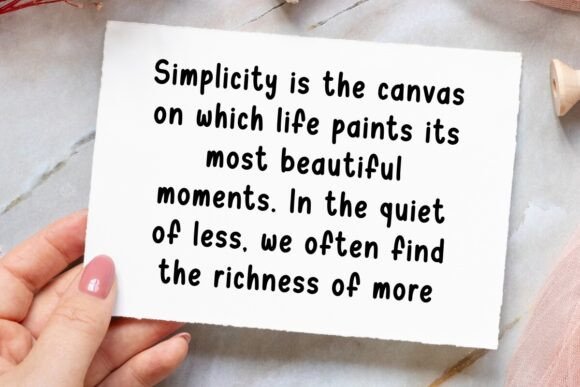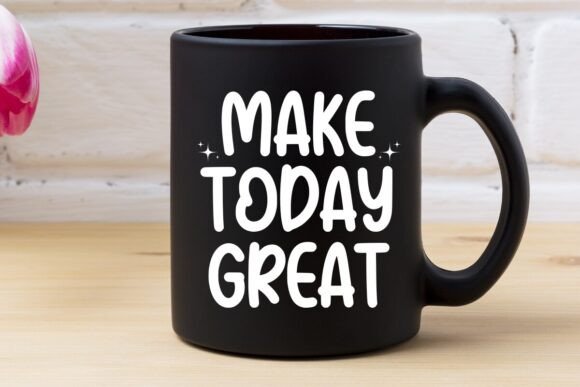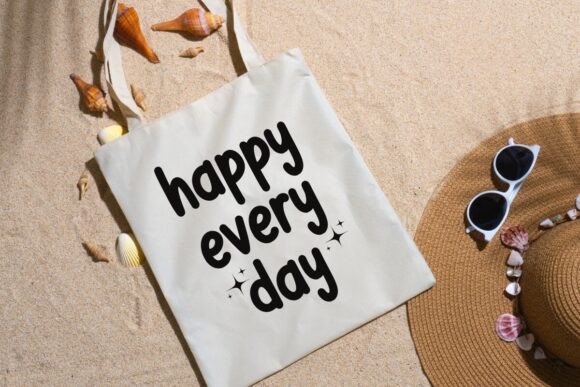
Introduction to Magic Planner Font
Have you ever found yourself stuck in the midst of a creative project, struggling to convey your ideas through a font that’s anything but clear? The frustration of choosing a font that’s not quite right can be overwhelming, but what if you could unlock a design secret that makes all the difference? Enter the Magic Planner Font, a game-changing sans-serif font designed for unparalleled clarity and readability.
With its clean lines, balanced proportions, and modern appeal, the Magic Planner Font is the ultimate design resource for creatives seeking to elevate their projects. Whether you’re working on a digital interface or print materials, this versatile font is sure to make your message shine through with precision and style. And the best part? It’s a free download, waiting to be discovered by designers who value high-quality typography.
Key Features of Magic Planner Font
- High-quality font design with a transparent background, perfect for creative projects and design resources.
- Unique, hand-drawn design elements and illustrations that add a touch of magic to any creative project or design resource.
- OpenType features, including ligatures and swashes, to add an extra layer of sophistication and elegance to your designs.
Honest Review: Magic Planner Font
I recently had the chance to experiment with the Magic Planner Font, and I must say, I’m impressed with its overall quality. As a designer, I’m always on the lookout for high-quality fonts that can elevate my creative projects.
One of the standout features of the Magic Planner Font is its transparent background, which makes it perfect for designing planners, journals, and other creative resources. The font is free to download, which is a huge plus for designers on a budget.
Here are some things that work well with the Magic Planner Font:
- ✨ Easy to read and use in both print and digital formats
- ✨ Perfect for designing planners, journals, and other creative resources
- ✨ High-quality design that looks great in a variety of layouts
- ⚠️ Limited character set, which may not be suitable for longer texts
- ⚠️ Not as versatile as some other fonts, which may limit its use in certain design projects
Overall, I’m impressed with the Magic Planner Font. While it may have some limitations, its high-quality design and transparent background make it a valuable resource for designers working on creative projects. If you’re looking for a font to use in your next planner or journal design project, I’d definitely recommend giving the Magic Planner Font a try.
The Magic Planner Font is a versatile design resource that can be used for a variety of creative projects, including planners, journals, and other organizational tools. It can also be used for branding and marketing materials, such as business cards and brochures.
Tips for Getting the Most Out of Magic Planner Font
Use the Magic Planner Font in combination with a transparent background to create a clean and modern design. Experiment with different font sizes and styles to create a unique visual representation of your creative project.